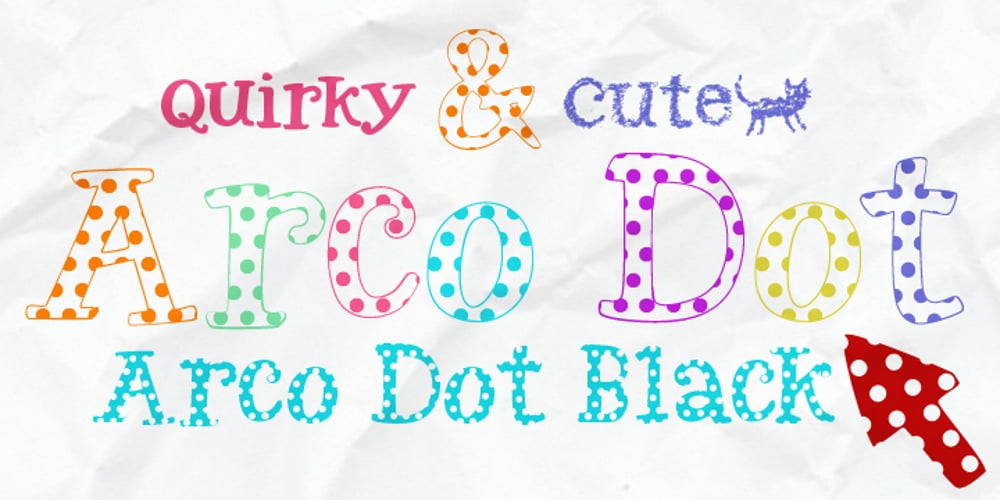
Arco Dot
Arco Dot font
Arco Dot Font Family was designed by Natsuko Hayashida and published by Okaycat. Arco Dot contains 2 styles and family package options. The Arco Dot font features an exciting texture of dots in matching complimentary styles, making cool designs easy! Arco Dot features extended characters, and contains West European diacritics & ligatures. Highly suitable for international environments & publications. Arco Dot pairs well with Arco Web and Arco Crayon from Okaycat fonts.